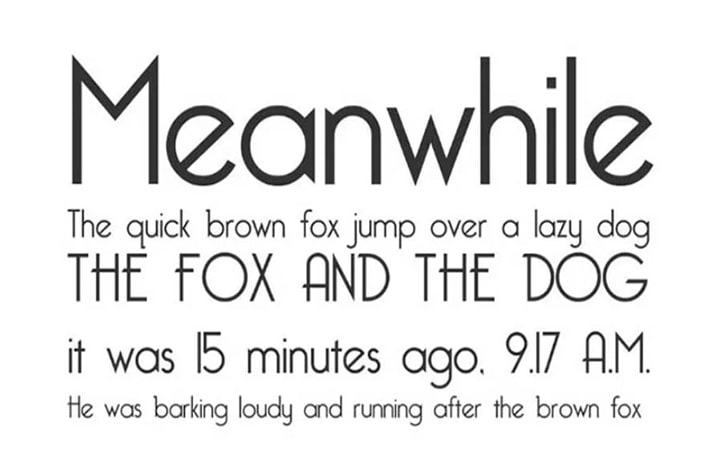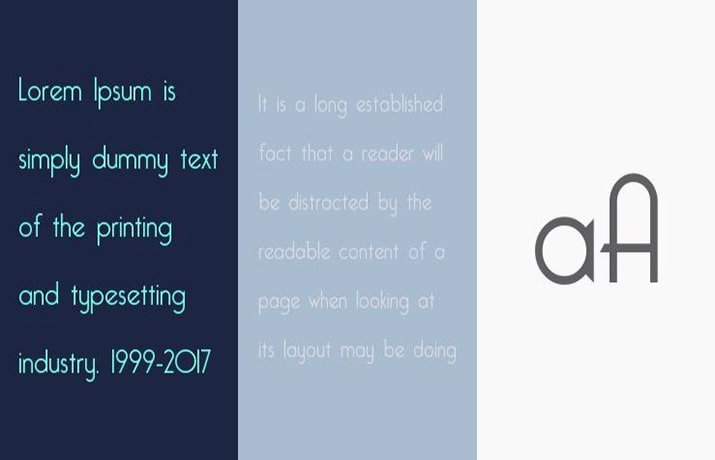
Bellerose Font is a unique font that features elements from both modern and retro design worlds. It’s perfect for crafting everything from business cards to flyers and posters.
An American font designer James Harris took the charge of creating it. And sharing it via his type foundry the Harris Type Design since 1992.
The designer team has created this style, which can be easily used for better font pairing as well as contrast.
It has a huge styling and deep potential making it an incredible kit pack for different design methods. Take a look at the pictures of font letters that we have put here.
You can use this font for different purposes. For example, this stunning font can be used for font pairings, greeting cards, invitations or professional business cards, book layouts, titles, banner ads, etc. Moreover, web developers can also use it for web designing and web development.
Bellerose Font has come only in a single regular style with Truetype features. Moreover, that regular style has 150 glyphs along with 950 units per em.
And it can also become a well-supported font for major international languages. Thus, one who would use it definitely takes an element, that is supremacy in design.